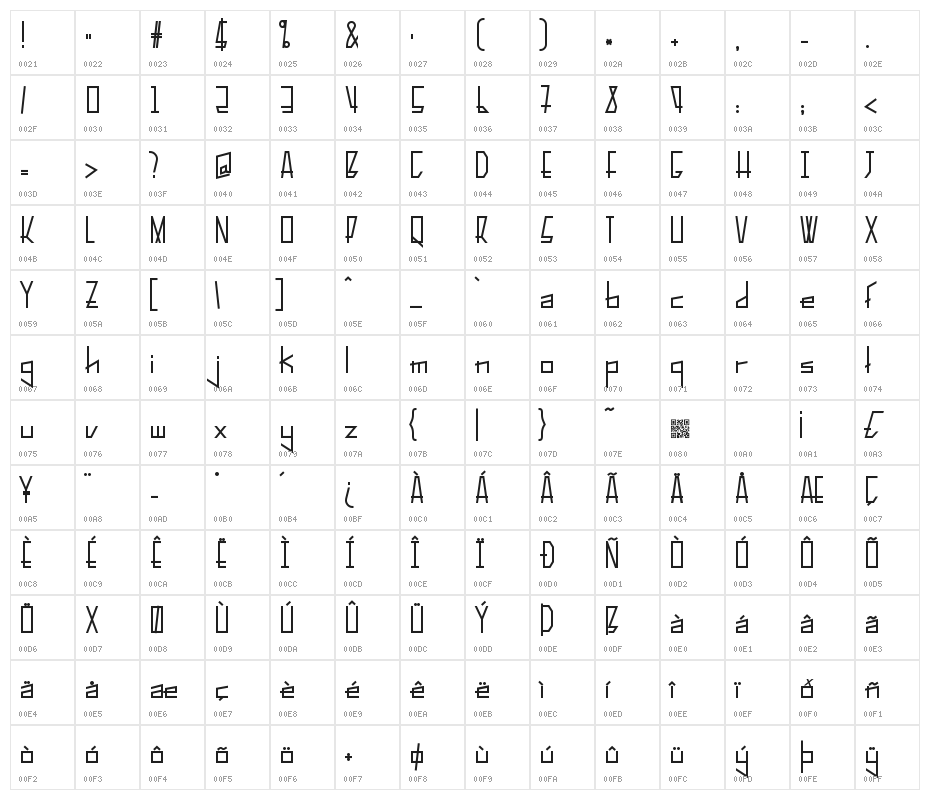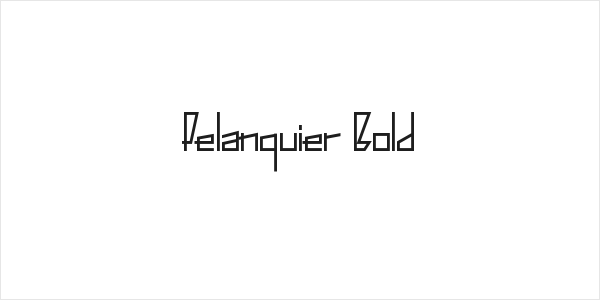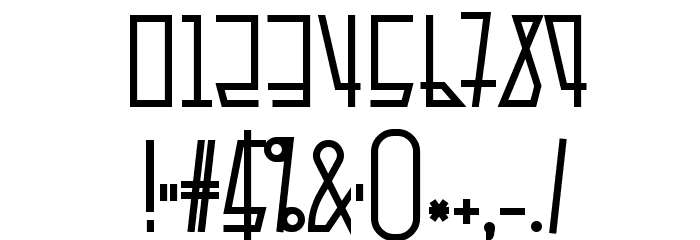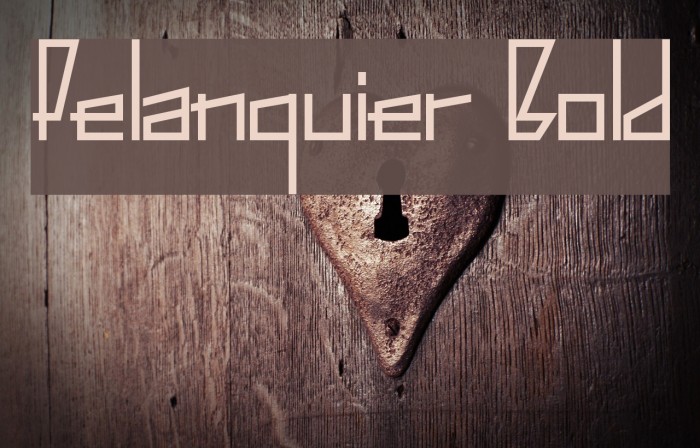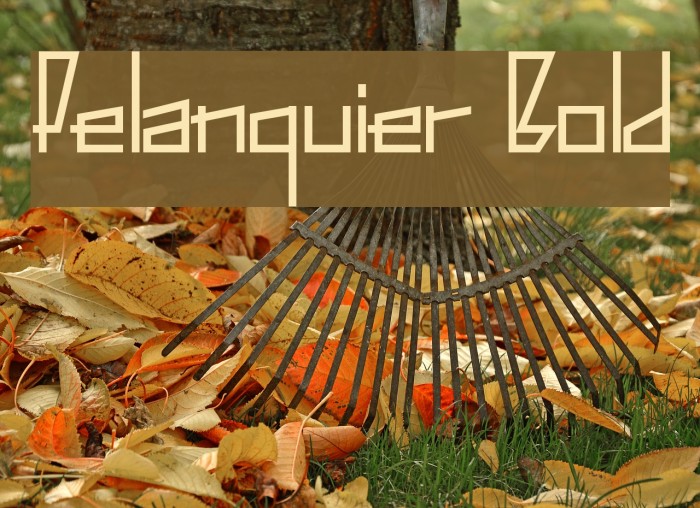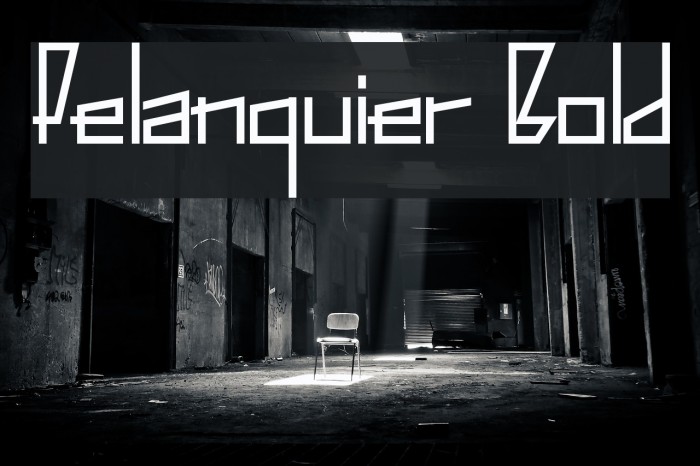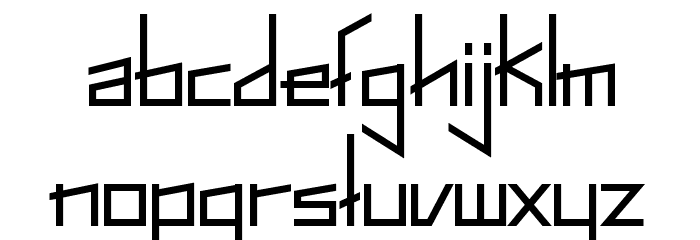
Pelanquier Bold Font
Pelanquier Bold Description
This font features a geometric and angular design, characterized by sharp edges and a modern aesthetic. The uppercase letters are tall and narrow, with distinct diagonal lines that create a dynamic and edgy appearance. The lowercase letters maintain the angular theme, offering a cohesive look across the alphabet. Numbers and special characters follow the same design principles, ensuring consistency throughout. The overall style is bold and striking, making it suitable for attention-grabbing headlines and modern design projects.
| Proposed Projects | Ideal for modern branding, edgy posters, futuristic designs, and attention-grabbing headlines. |